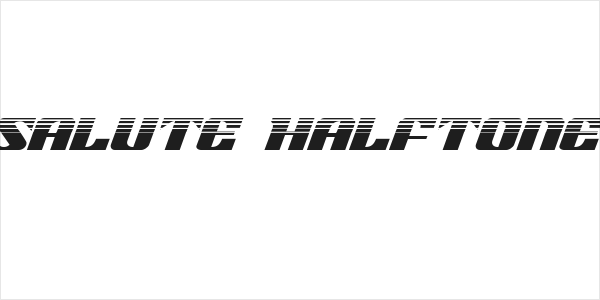
21 Gun Salute Halftone Italic Font
21 Gun Salute Halftone Italic Description
This font features a bold, italicized style with a distinctive halftone effect. The characters are designed with a modern, futuristic aesthetic, incorporating horizontal lines that create a sense of movement and dynamism. The uppercase and lowercase letters maintain a consistent width, giving the font a uniform appearance. The numbers and special characters are crafted to match the boldness and style of the alphabet, ensuring a cohesive look across all elements. This font's unique design makes it stand out, making it suitable for eye-catching displays.
| Proposed Projects | Ideal for use in posters, album covers, video game titles, and branding materials that require a modern and edgy look. |